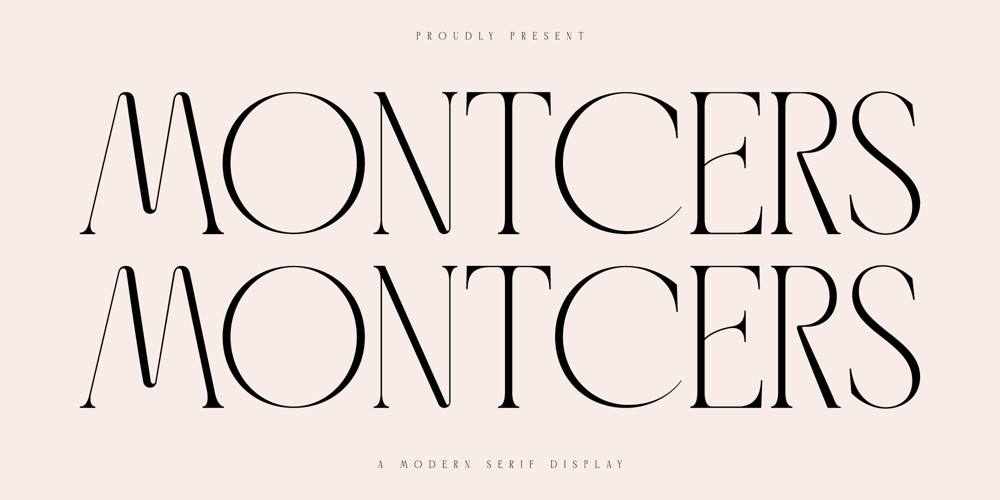
Montcers Font Family was designed by Heru Utama Putra and published by Letterena Studios. Montcers contains 2 styles and family package options. Montcers is a modern and classic serif typeface that hasit’s own unique style & modern look. This font is perfect for an elegant & luxury logo, book or movie title design, fashion brand, magazine, clothes, lettering, quotes, and so much more.